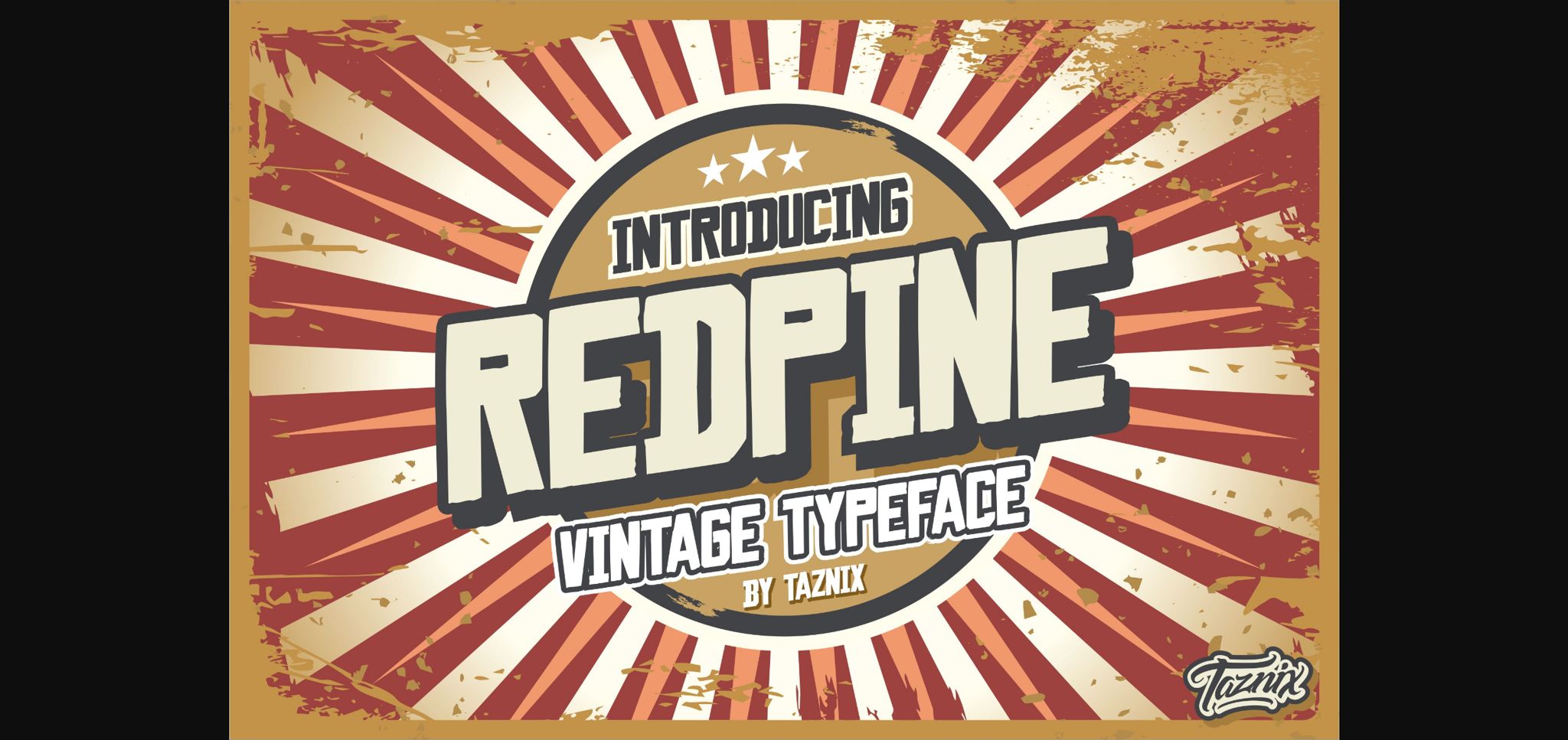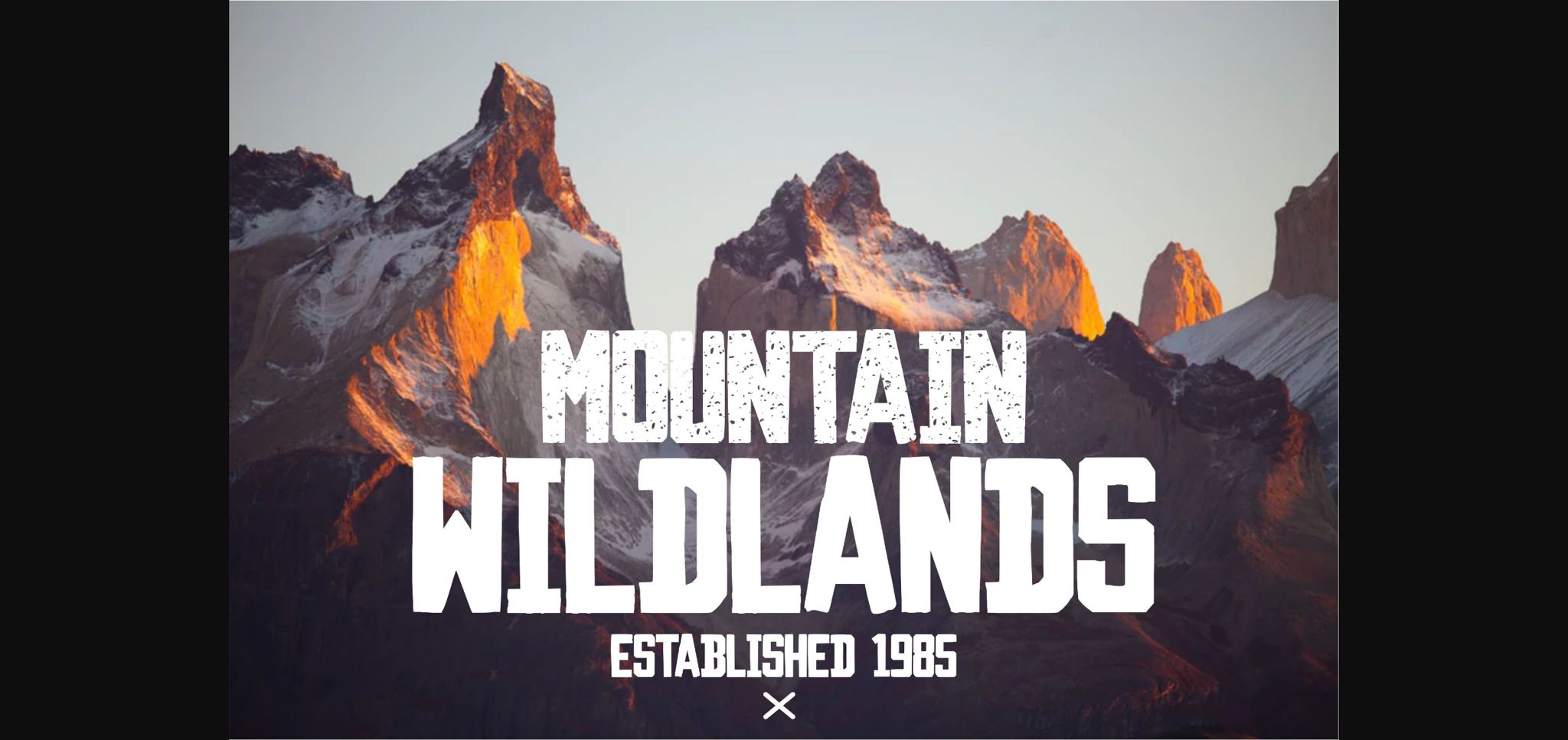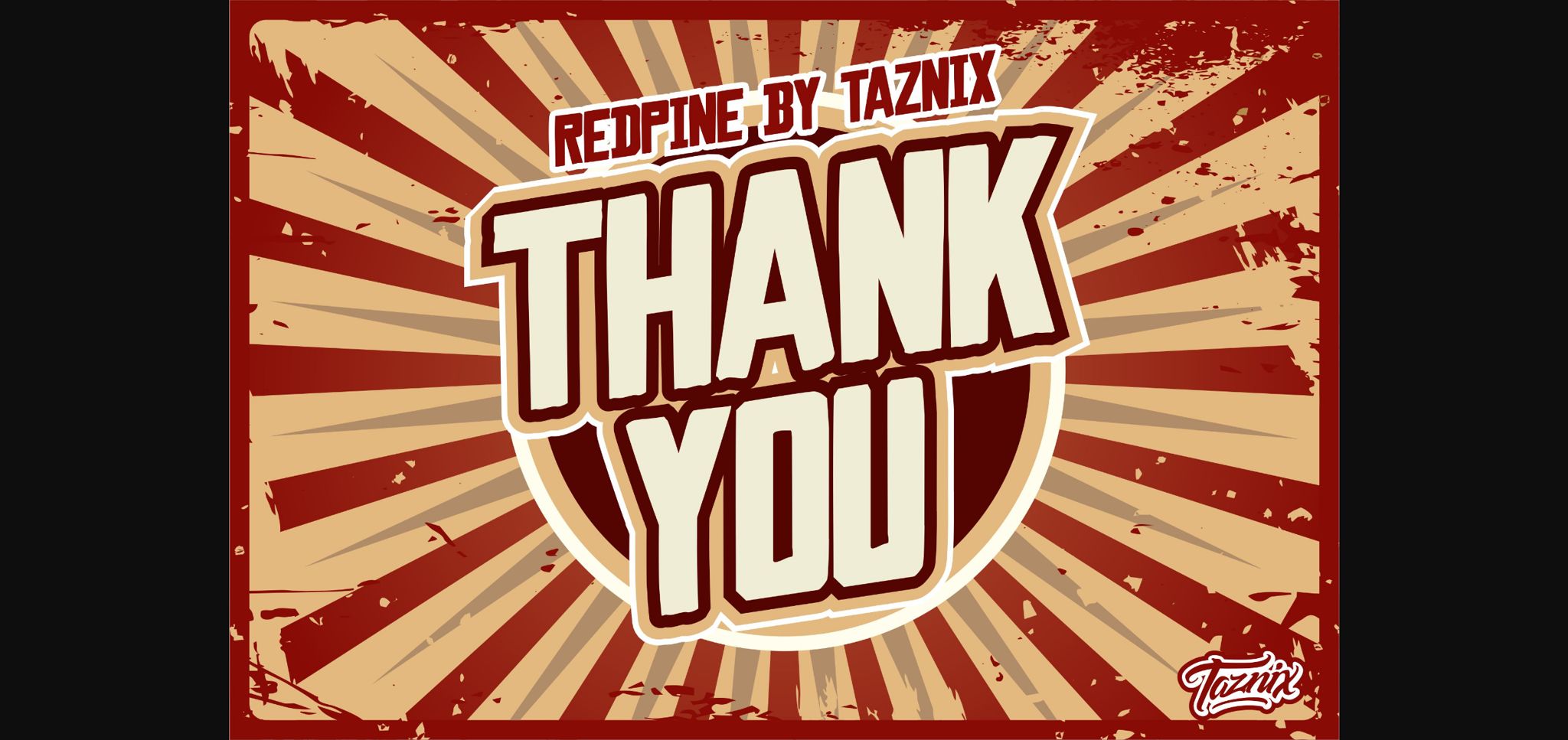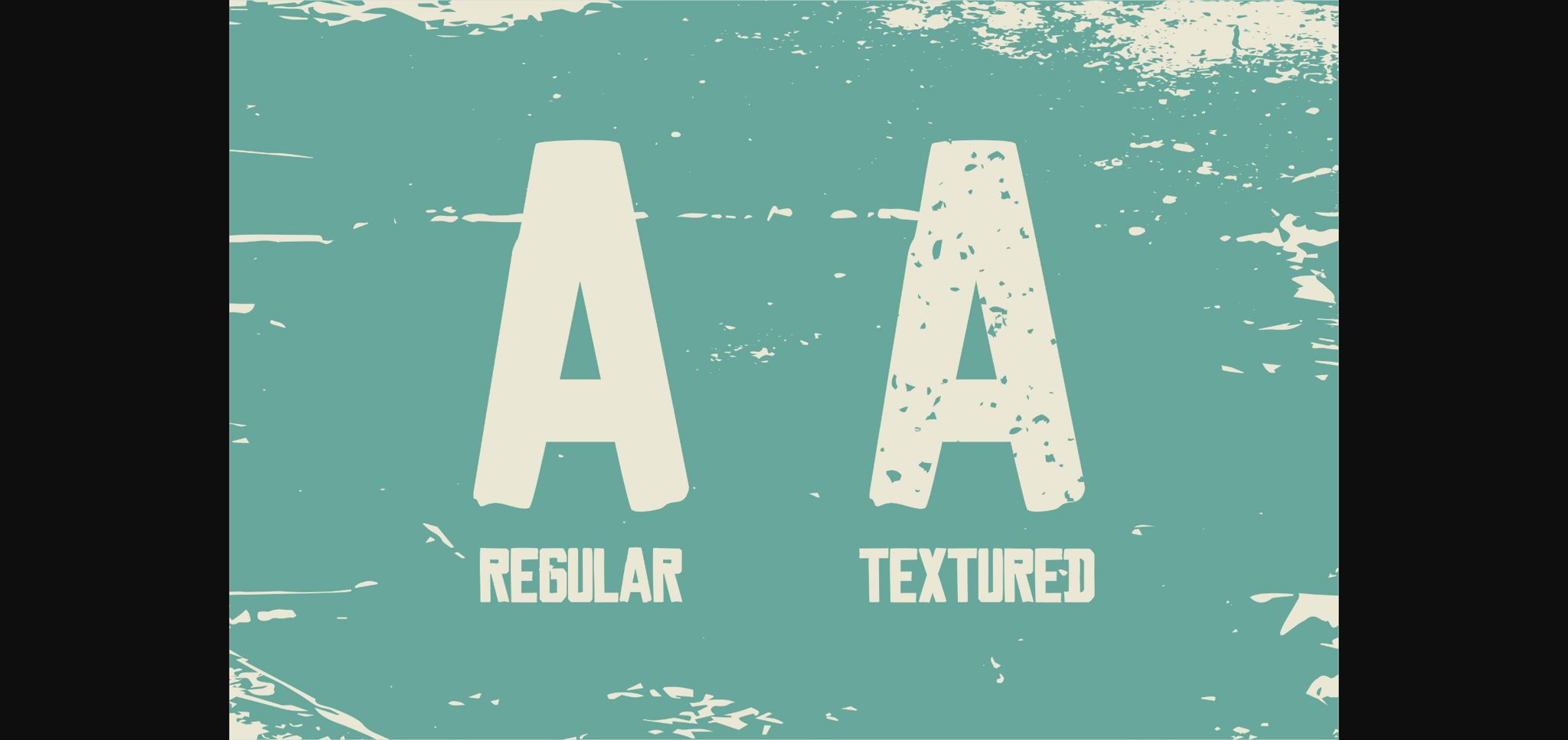
Redpine Font
About Redpine Font
Redpine is an unique and simple sans serif font. Use it to add that special retro touch to any design idea you can think of!